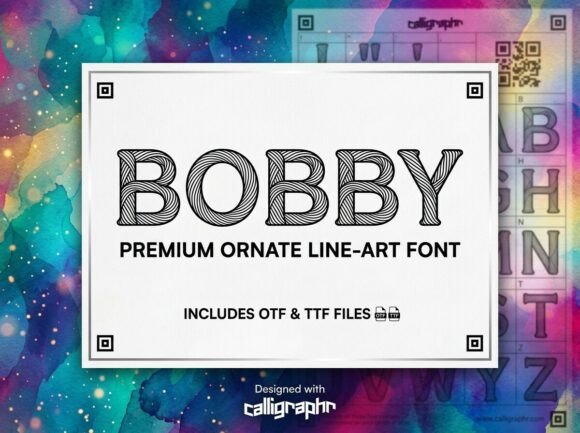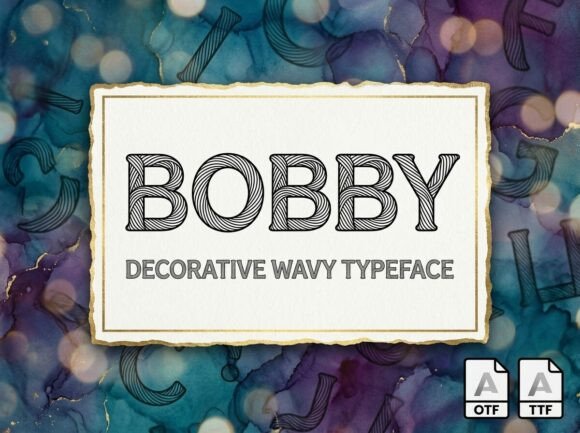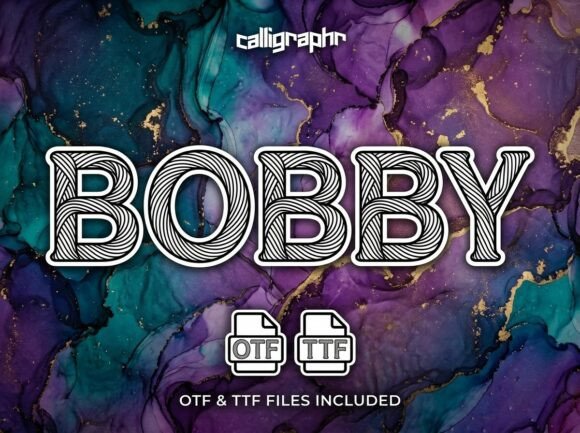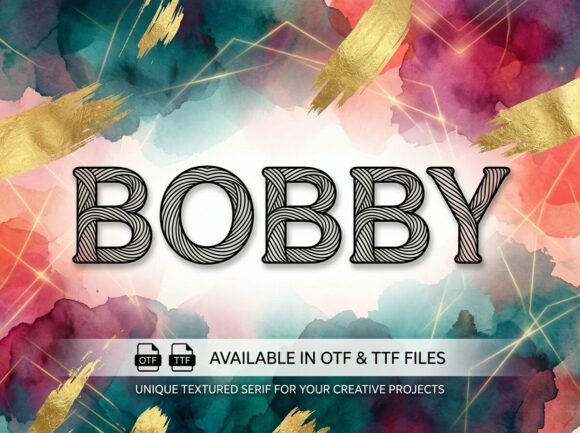
The Mesmerizing Bobby Font: Elevate Your Designs with Sophistication
I still remember the design project that led me to discover the captivating Bobby font. I was working on a branding project for a high-end winery, and my client requested a font that exuded sophistication and elegance. After hours of scouring font libraries and marketplaces, I stumbled upon Bobby – a mesmerizing display serif that instantly captured the essence of the project’s vision.
An Honest Review of Bobby Font
What I Love About Bobby ✨
• 💥 Unique internal texture: The rhythmic, hand-drawn “swirling” lines within the letterforms add an artistic touch that’s hard to find elsewhere.
• ✅ Sophisticated and sculptural feel: Bobby’s bold, slab-like letterforms convey a sense of luxury and refinement.
• 🎨 Versatility: From winery identities to artisanal packaging and social media content, Bobby’s artistic personality shines through.
While Bobby is an exceptional font, there are a few things to consider:
• 🤔 Limited use cases for body text: Due to its bold and ornate nature, Bobby works best as a display font or for headings.
• ⚠️ Potential legibility issues: When used at small sizes or in certain contexts, the intricate details may become difficult to read.
The Designer’s Inspiration Behind Bobby
Bobby’s creator drew inspiration from vintage fingerprint patterns and modern optical art branding. The goal was to craft a font that embodied a sophisticated, sculptural soul – perfect for high-end designs and artistic expressions.
Q: What makes Bobby font unique?
A: Bobby’s intricate internal texture and bold, slab-like letterforms set it apart from other fonts.
Q: Is Bobby suitable for body text?
A: Due to its bold and ornate nature, Bobby works best as a display font or for headings.